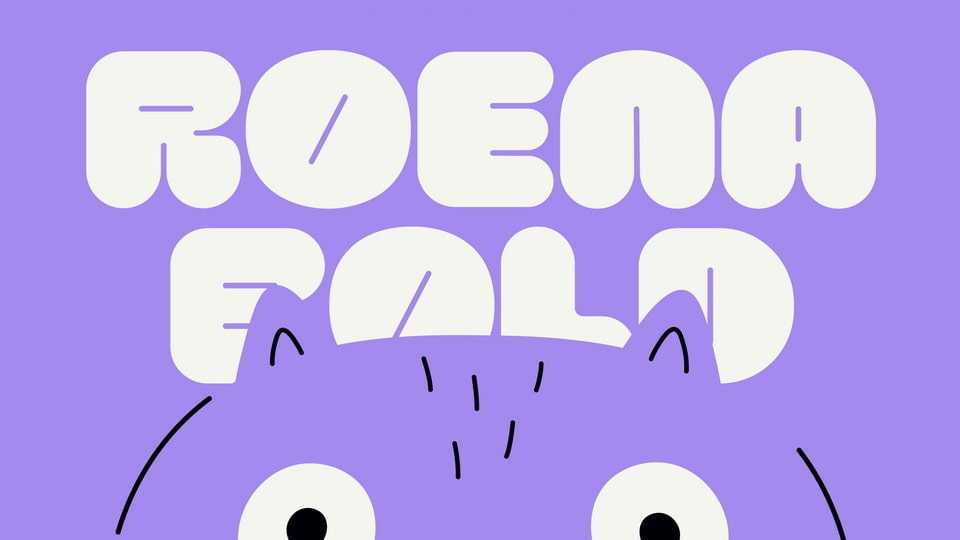
Download Roena font, a typeface with a bold, cheerful, and expressive style designed to bring a fun vibe to every design with its unique, rounded, and daring letterforms.